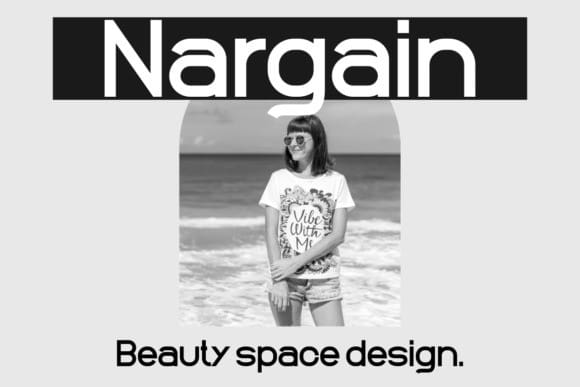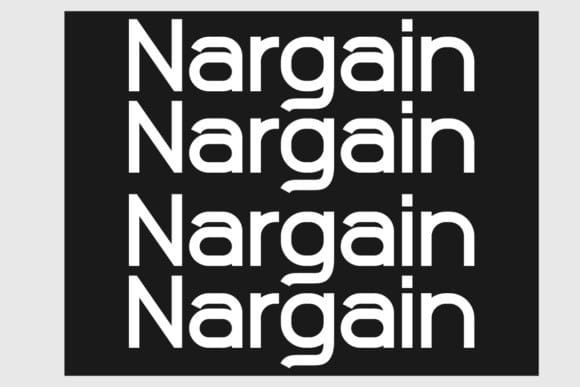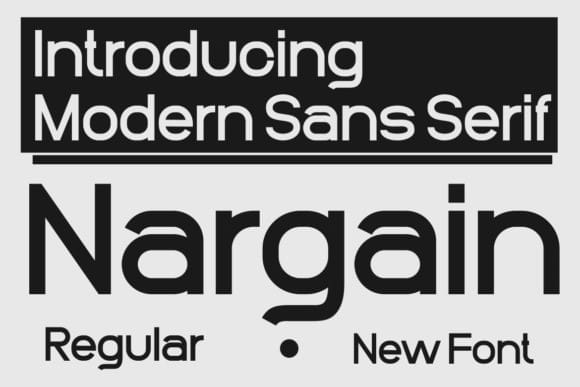
Nargain Font
Nargain Font is an authentic and unique modern sans serif font that is perfect for professional and product branding needs. This font is suitable for any branding project such as quotes, logos, blog headers, posters, ribbons, letters, invitations, stationery, etc… It is designed to be versatile and flexible that can be used on a variety of projects and mediums. extraordinary in a variety of contexts.